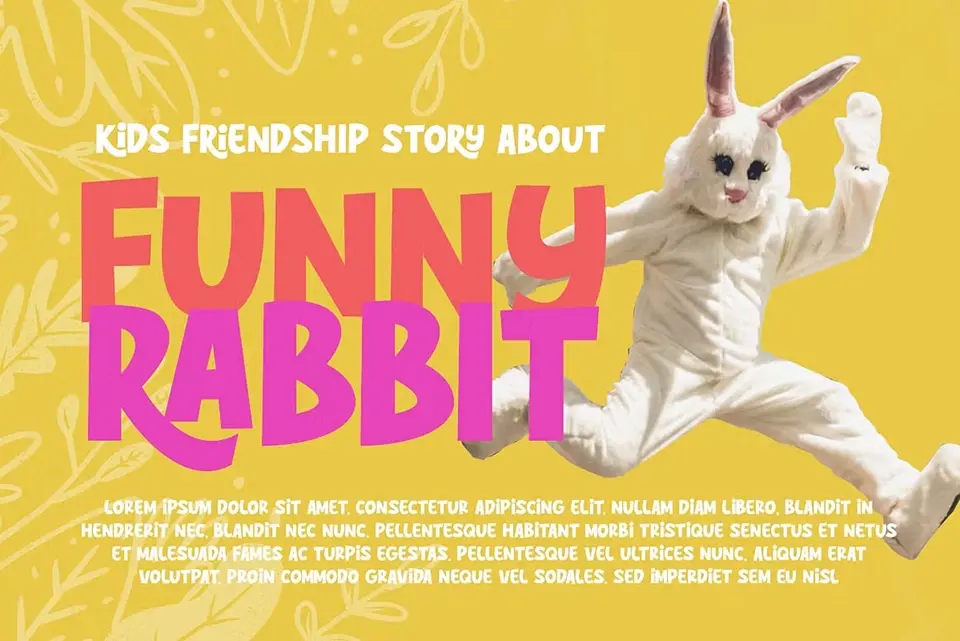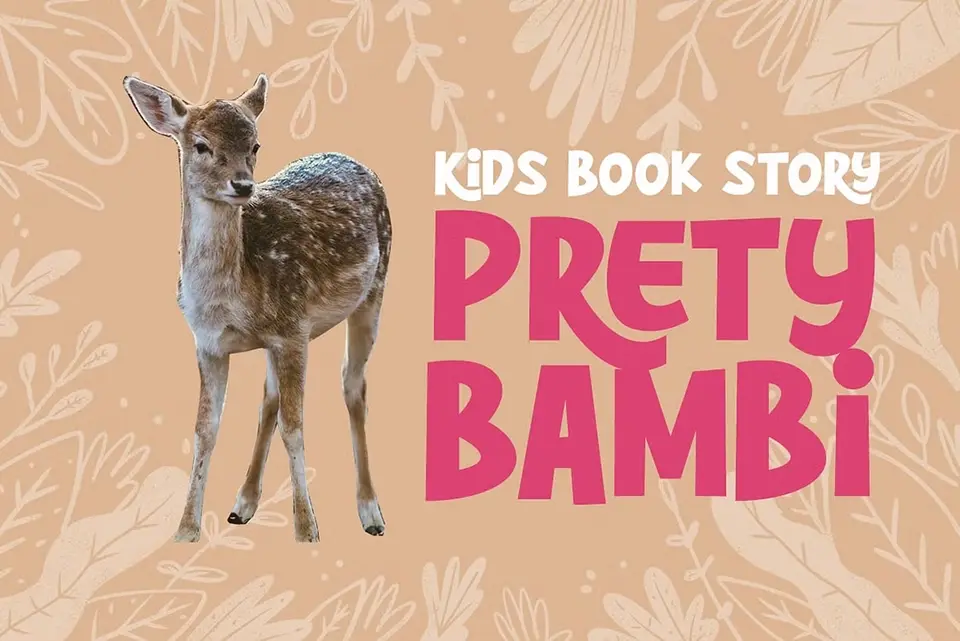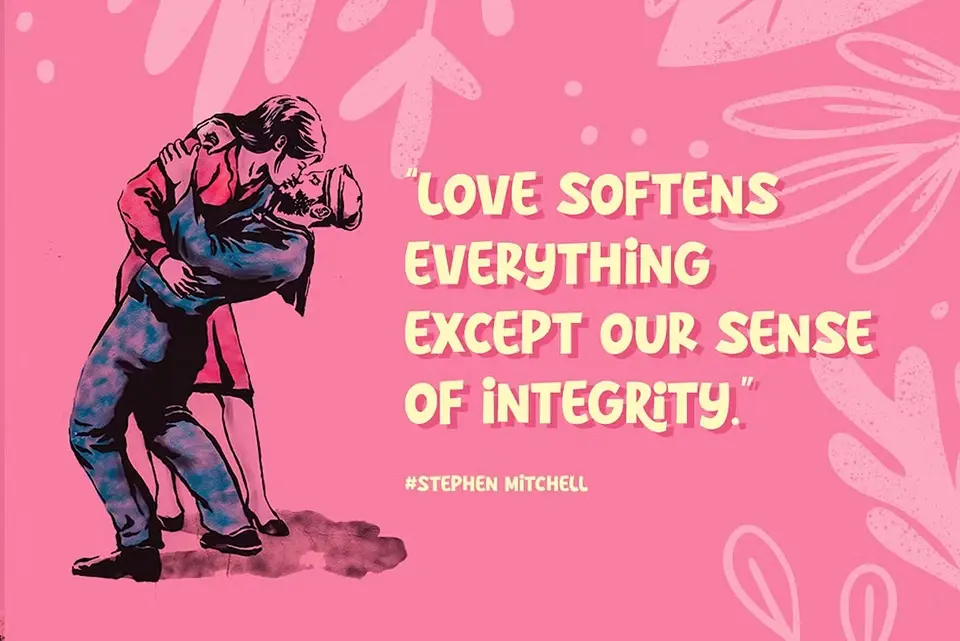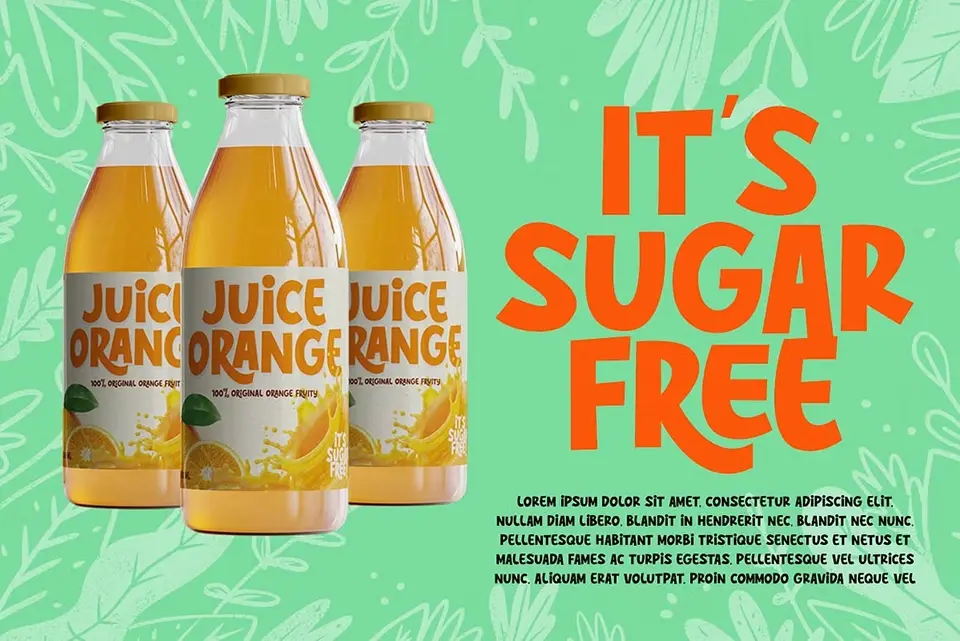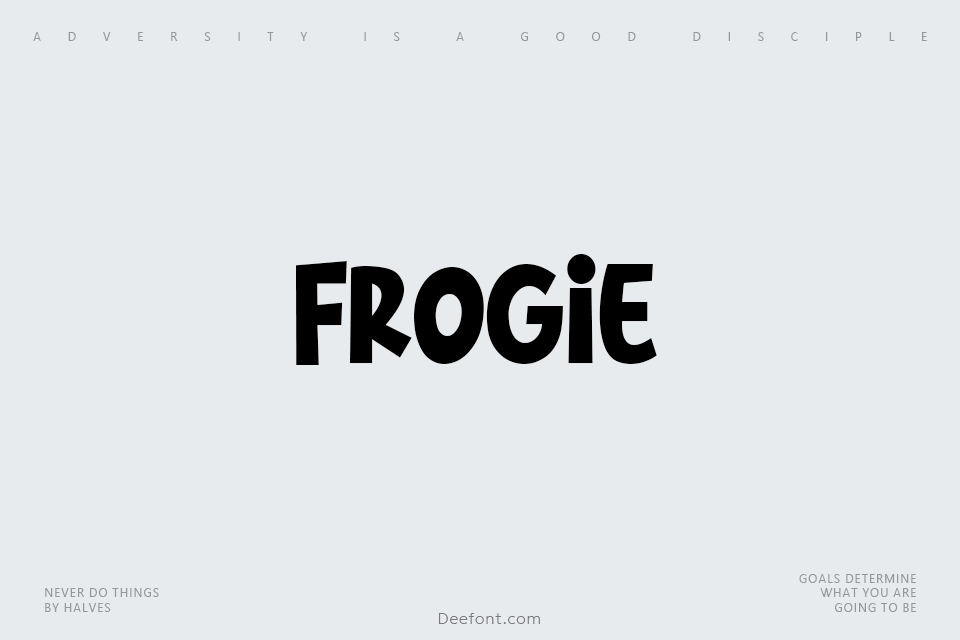
Frogie Font
Frogie is a playful and bold cartoon display font designed with whimsical charm and energy. Featuring chunky, rounded letterforms that leap with dynamic personality, this friendly typeface brings lighthearted joy to any design project. Perfect for children's books, animated titles, poster designs, logos, branding, and creative social media content, Frogie combines modern playfulness with decorative elegance. Its thick geometric shapes and smooth curves create memorable typography that stands out while maintaining excellent readability across all sizes and applications.